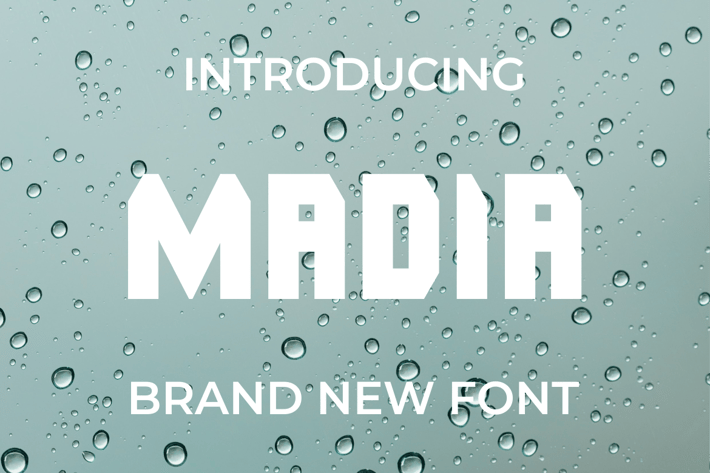
Madia Font
Introducing our new product Madia Font - Modern Font
Madia Font - Modern Font is a bold and authentic display font. The font is suitable for any branding project like logo, t-shirt printing, esport, and many more. outstanding in a wide range of contexts.